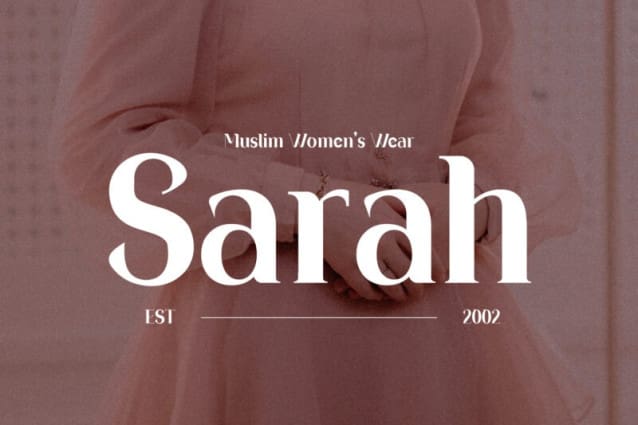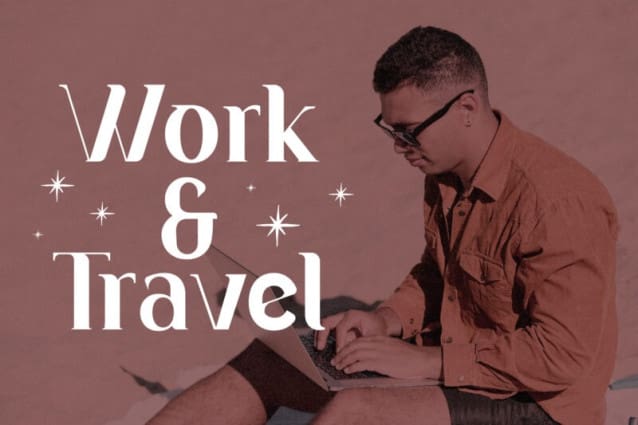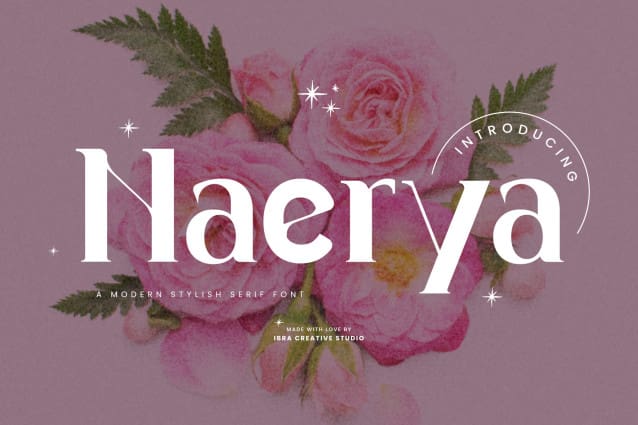
Naerya Font
Naerya Font, a modern stylish serif font, effortlessly blends sophistication with contemporary design elements. With its sleek and clean lines, Naerya Font exudes a sense of timeless elegance, making it an ideal choice for projects that demand a touch of class. The font’s well-crafted serifs add a distinctive flair, striking a perfect balance between tradition and modernity. Naerya’s letterforms showcase a harmonious interplay of curves and straight lines, resulting in a balanced and refined aesthetic. Whether used for editorial design, branding, or digital applications, Naerya stands out as a versatile and visually pleasing serif font that lends a touch of sophistication to any project.